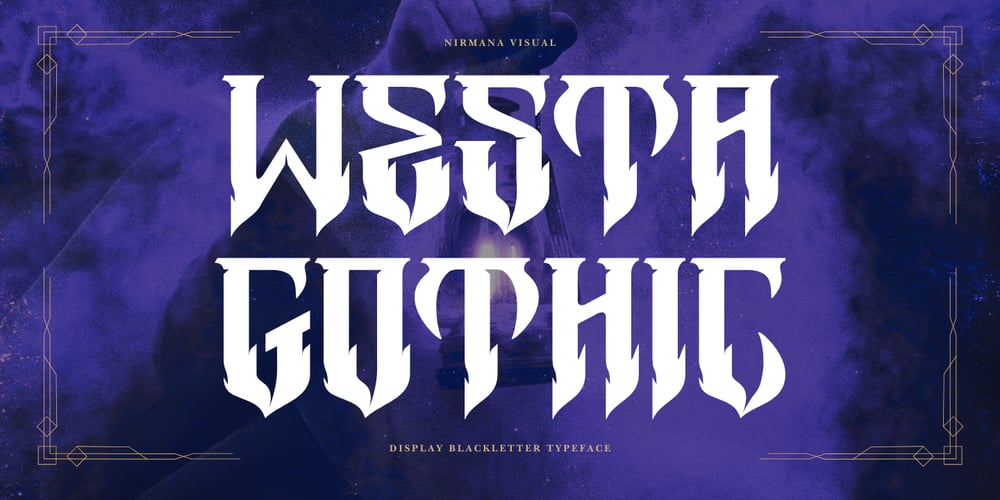
Westa Gothic
Westa Gothic font
Westa Gothic Font Family was designed by Sigit Dwipa and published by Nirmana Visual. Westa Gothic contains 1 styles and family package options. Introducing Westa Gothic, Rooted in medieval script, Blackletter fonts offer a unique and dramatic flair that can elevate your design with a touch of historic elegance.The classic appeal of Black Letter Gothic fonts makes them perfect for a wide range of projects, from print to digital.